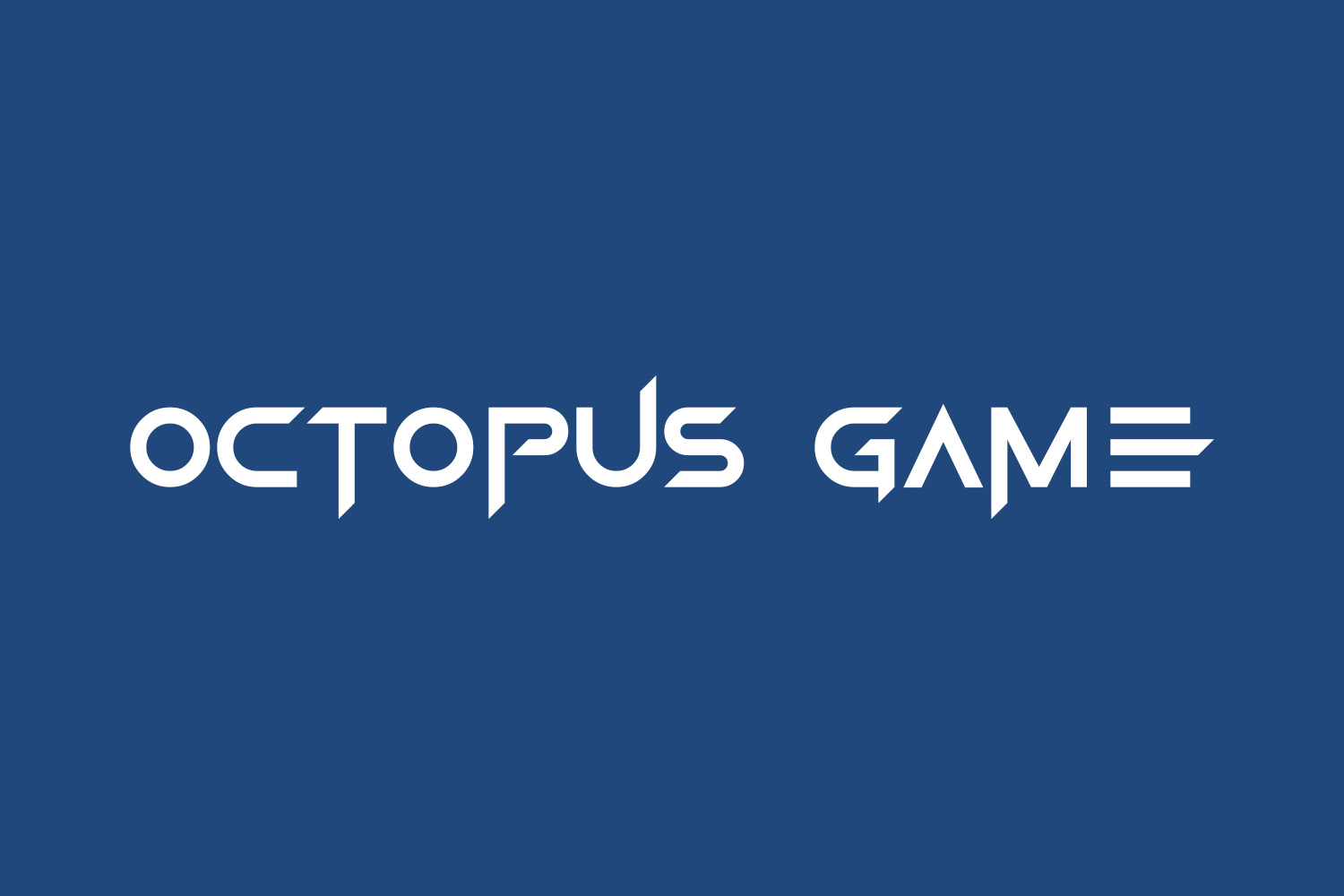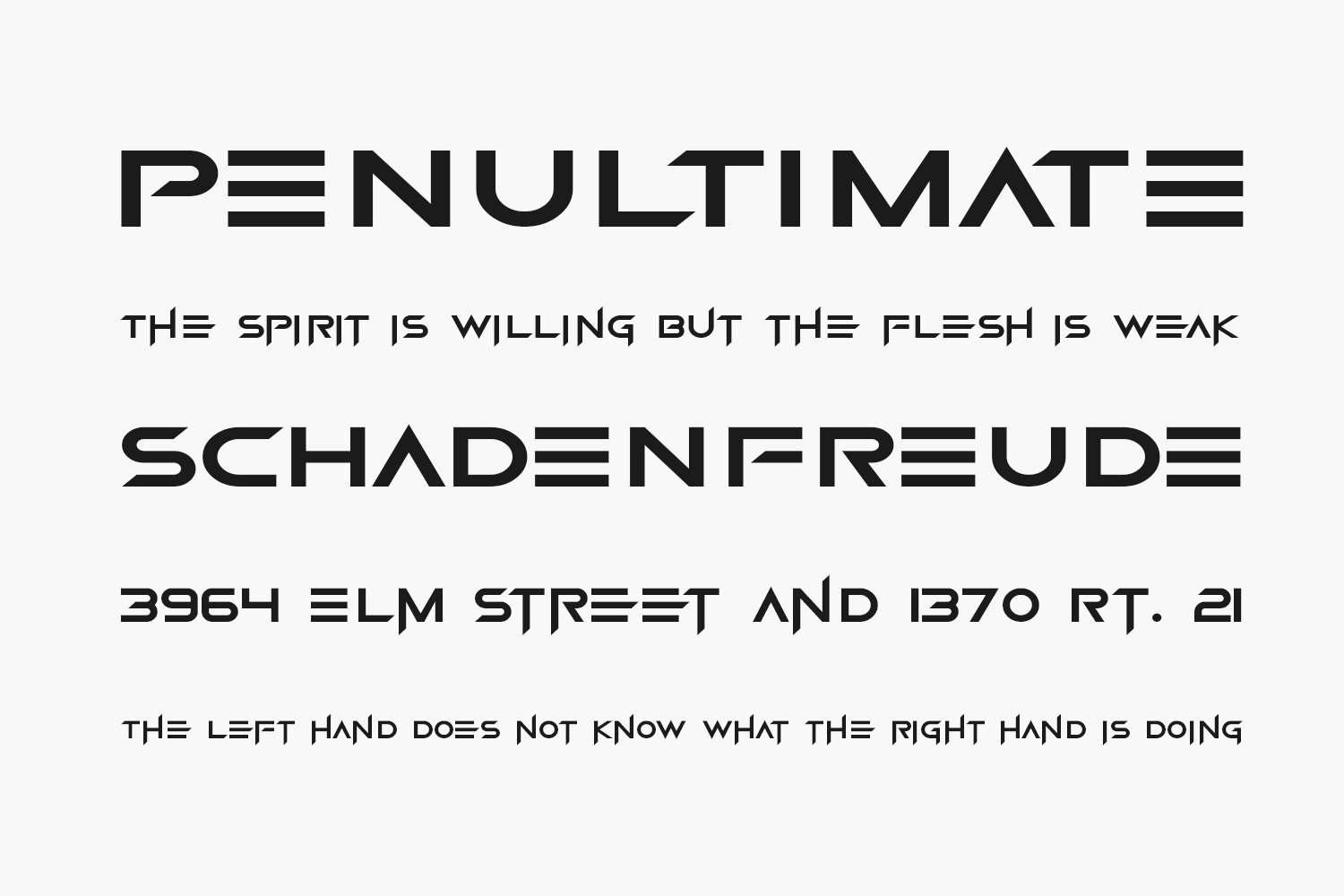
Octopus Game Free Font Family presents a sleek and contemporary font that cleverly merges smooth curves with sharp angles, creating a captivating visual aesthetic. This font is exceptionally well-suited for science fiction-themed projects, futuristic settings, and various other title applications. Octopus Game Free Font Family is free for personal use only. Please purchase the full version for commercial use.